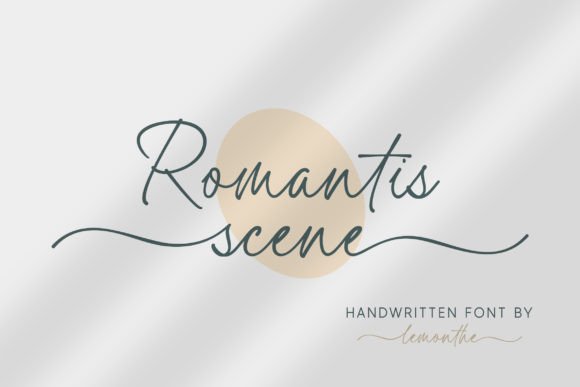
Unveil Elegance and Grace with Romantis Scene Font: The Perfect Handwriting Font for Your Creative Endeavors
In a world where authenticity captivates, Romantis Scene Font emerges as a masterpiece, poised to transform your designs with its captivating charm. This meticulously crafted script font possesses an inherent beauty that reflects the art of handwriting, evoking a sense of timeless sophistication and heartfelt connection.
With its graceful curves and effortless flow, Romantis Scene Font transcends the boundaries of ordinary typography. It's a symphony of finesse, inviting you to express your individuality through captivating designs that resonate with your audience. Whether you're crafting logos that exude elegance, creating invitations that radiate warmth, or designing stationery that embodies grace, Romantis Scene Font is your ultimate companion.
Immerse yourself in the versatility of Romantis Scene Font, a font family that caters to a myriad of creative endeavors. Its versatility extends from logos and branding to invitation designs and stationery creations. It's the perfect choice for wedding designs, signature styles, product designs, labels, and photography projects. Romantis Scene Font effortlessly enhances any design, adding a touch of sophistication and elegance that captivates attention.
Experience the magic of Romantis Scene Font and witness the transformation of your creative visions into breathtaking realities. Its modern style seamlessly blends with various design aesthetics, providing endless opportunities for you to express your unique style. Embrace the essence of beauty and elegance with Romantis Scene Font, and elevate your designs to new heights of artistry.